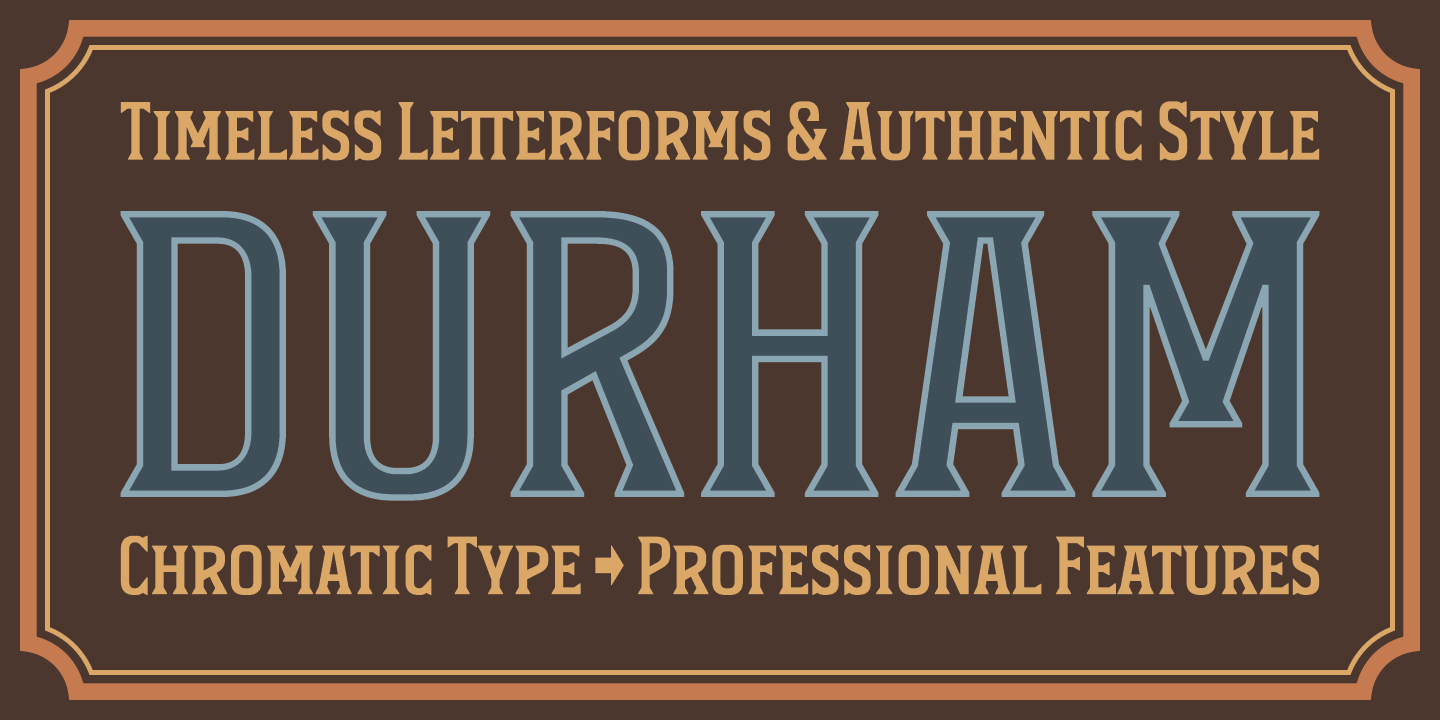
The Durham Latin Font is a distinguished and robust typeface that exudes a sense of historical gravitas combined with contemporary readability. Its classic appeal makes it an excellent choice for projects requiring a touch of tradition, authority, or timeless elegance. Envision this font gracing the pages of academic publications, adding authenticity to historical documentaries, or lending a sophisticated air to museum exhibits. It's also remarkably effective for branding initiatives that aim to convey heritage, trust, or a sense of established quality, such as legal firms, financial institutions, or artisanal product lines. Whether you’re designing book covers, creating formal invitations, or crafting corporate stationery, the Durham Latin Font will imbue your work with gravitas and refinement.
What makes the Durham Latin Font so exciting? It’s the perfect blend of historical charm and modern utility. This font captures the essence of classic Latin typography, offering a strong, clear, and authoritative presence without feeling antiquated. Its well-defined serifs and balanced letterforms ensure excellent legibility, making it suitable for both headlines and body text. The Durham Latin Font communicates a sense of reliability and intellectual depth, allowing your content to resonate with authority and gravitas. It’s a typeface that commands attention while offering a comforting familiarity, providing a unique visual identity that is both powerful and approachable.
The Durham Latin Font family typically offers a range of styles to provide versatility across various design needs. While specific offerings may vary, common weights and styles you might encounter include Durham Latin Regular, Durham Latin Bold, Durham Latin Light, and often an Italic counterpart for each weight. These variations allow designers to create visual hierarchies, emphasize key information, and add stylistic flair while maintaining a cohesive and professional appearance. The availability of multiple weights ensures that the Durham Latin Font can adapt seamlessly to different design demands, from subtle accents to prominent titles. For your projects, remember to utilize the Durham Latin Font Free Download for preliminary testing, and ensure proper licensing for all commercial applications.